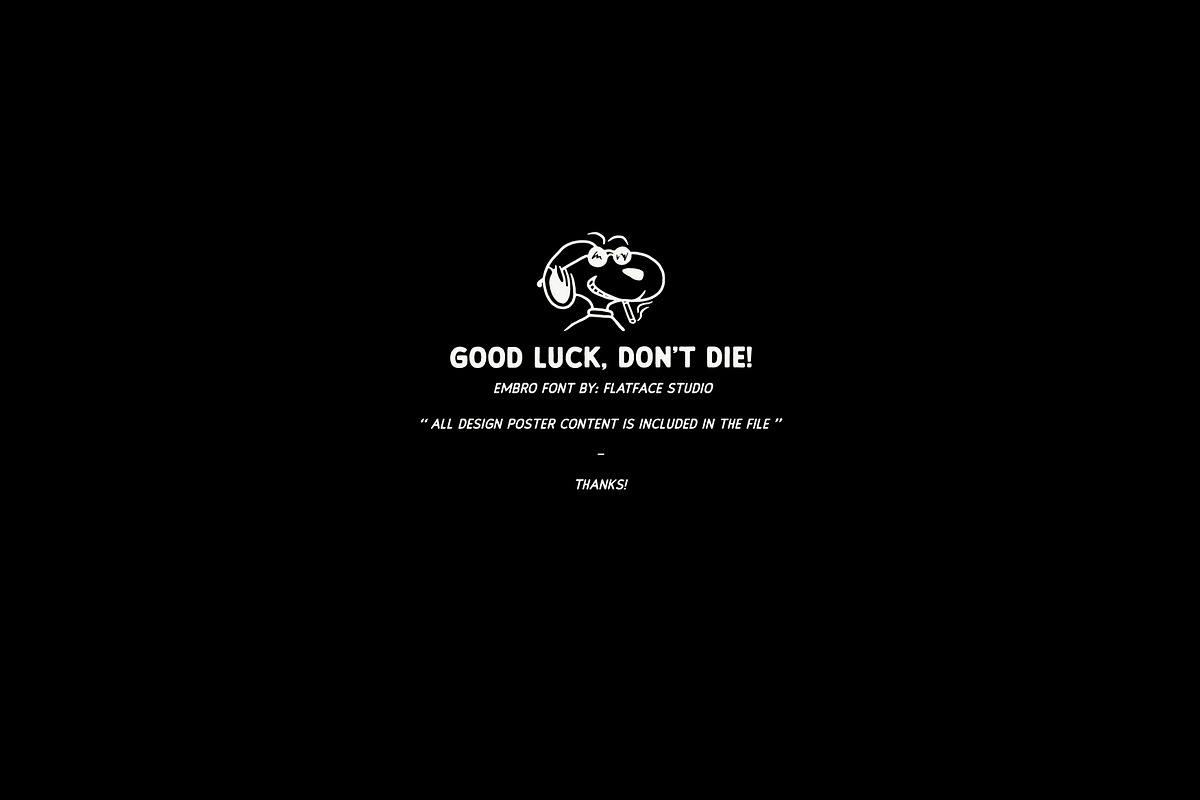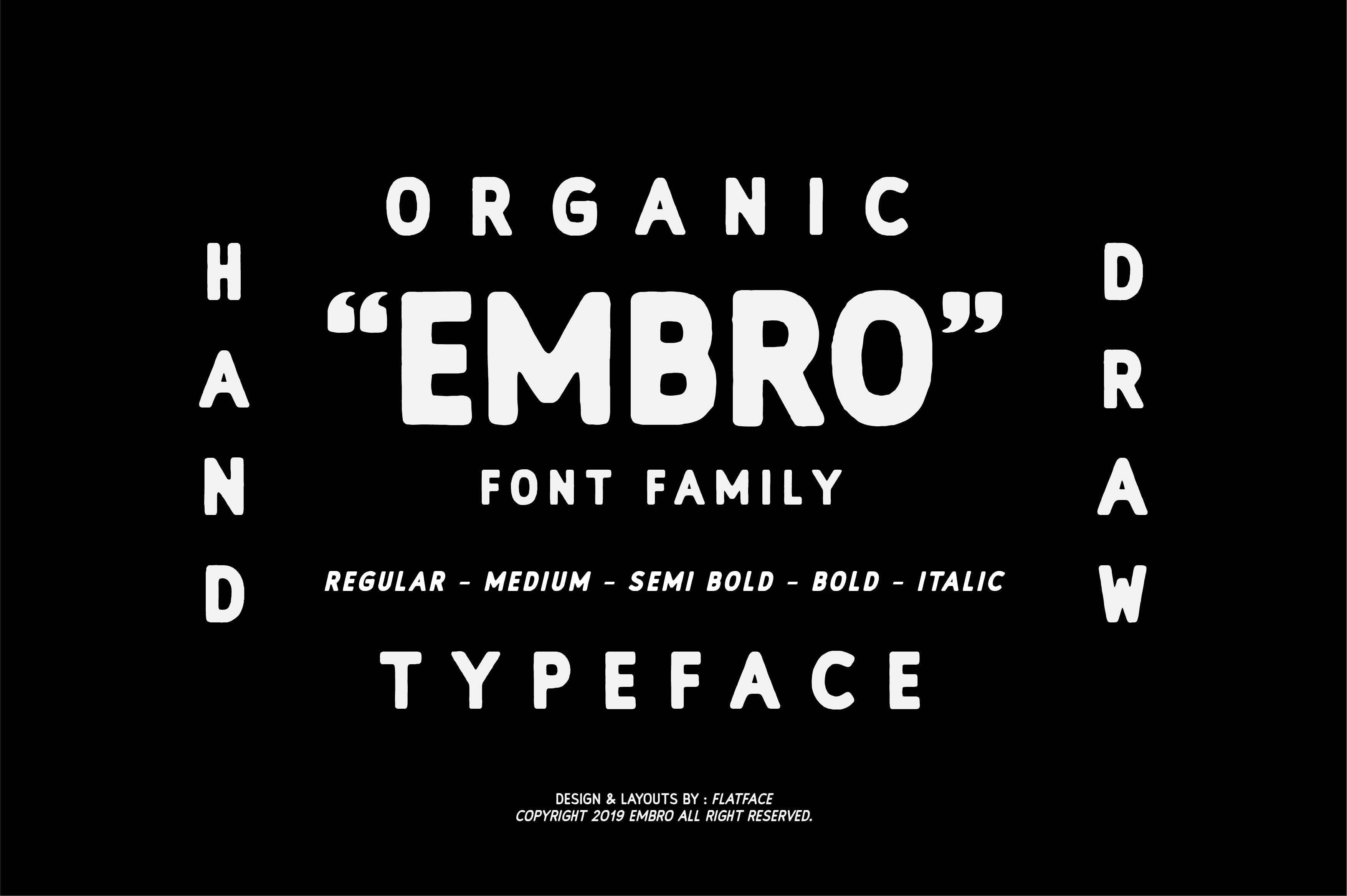
EMBRO Font Family
EMBRO FONT is a font family vintage / classic 50's inspired from embroidery font made for the purposes of vintage / classic display design, fonts available in 4 styles regular, medium, semi bold, bold and itallic to suit your design needs, It is perfect for branding, advertising, Logotype, etc.